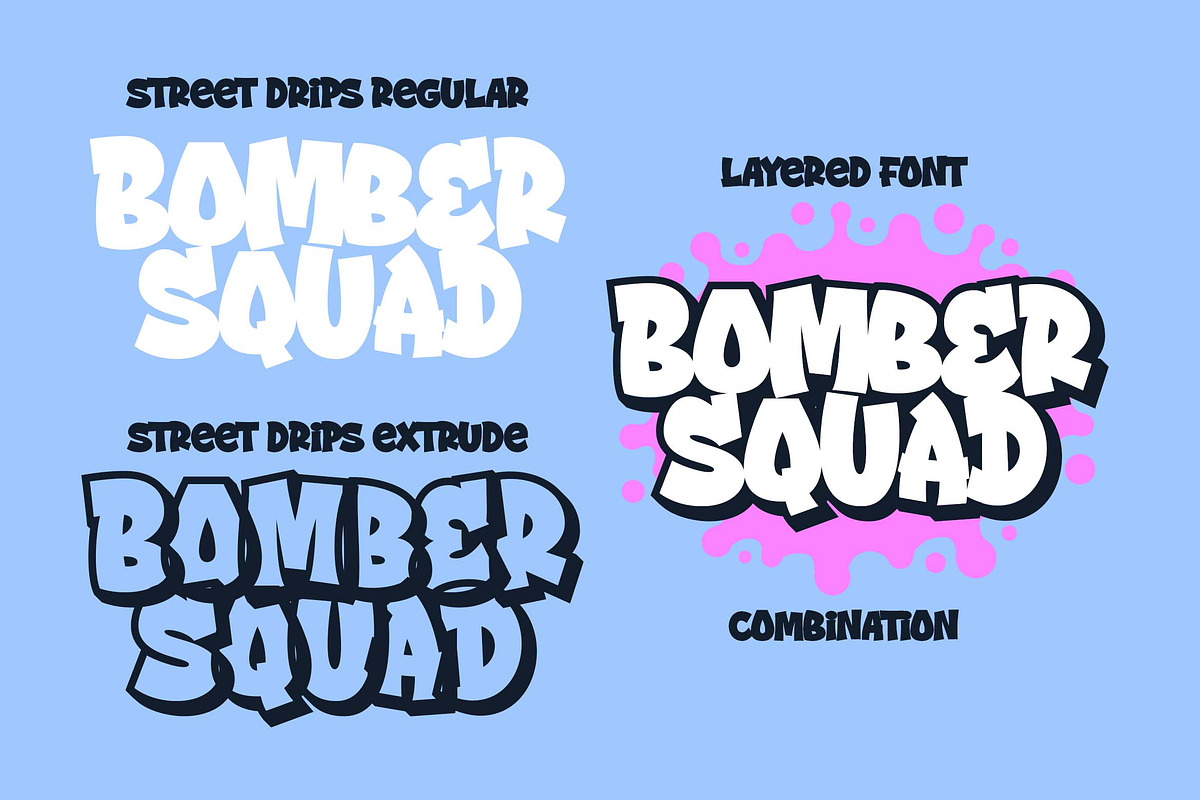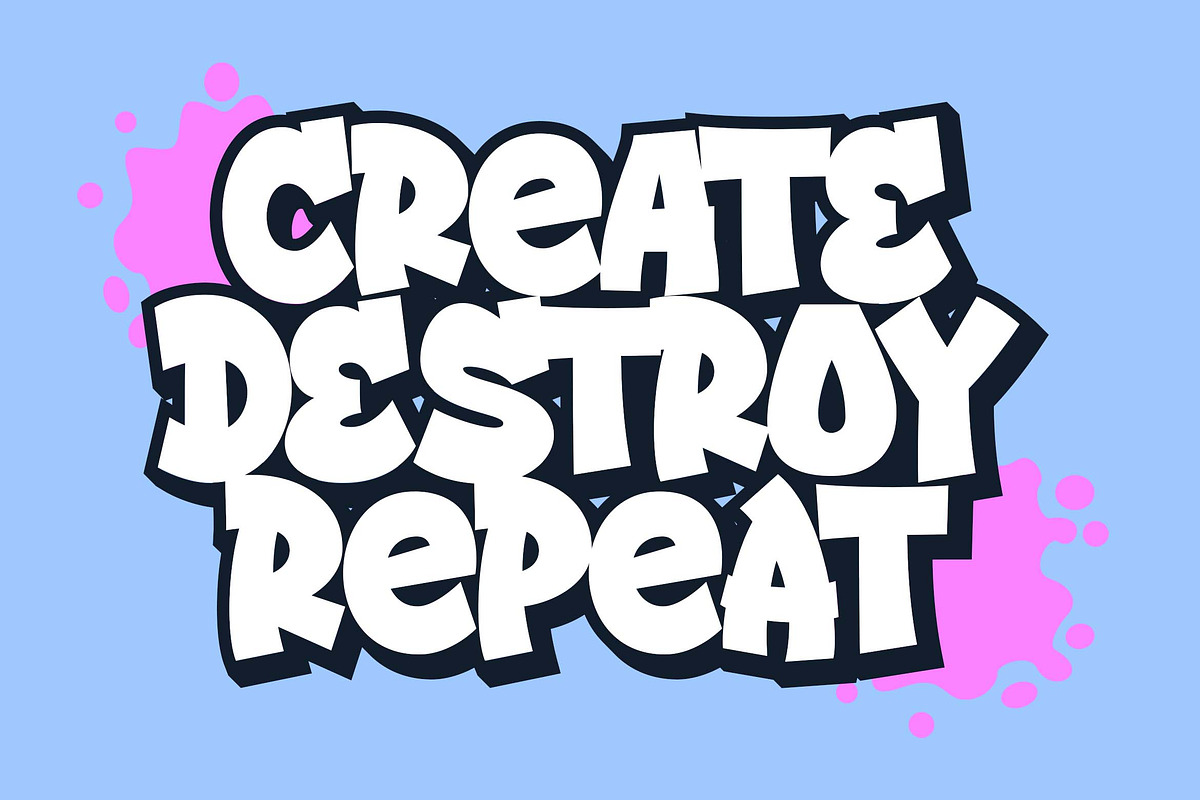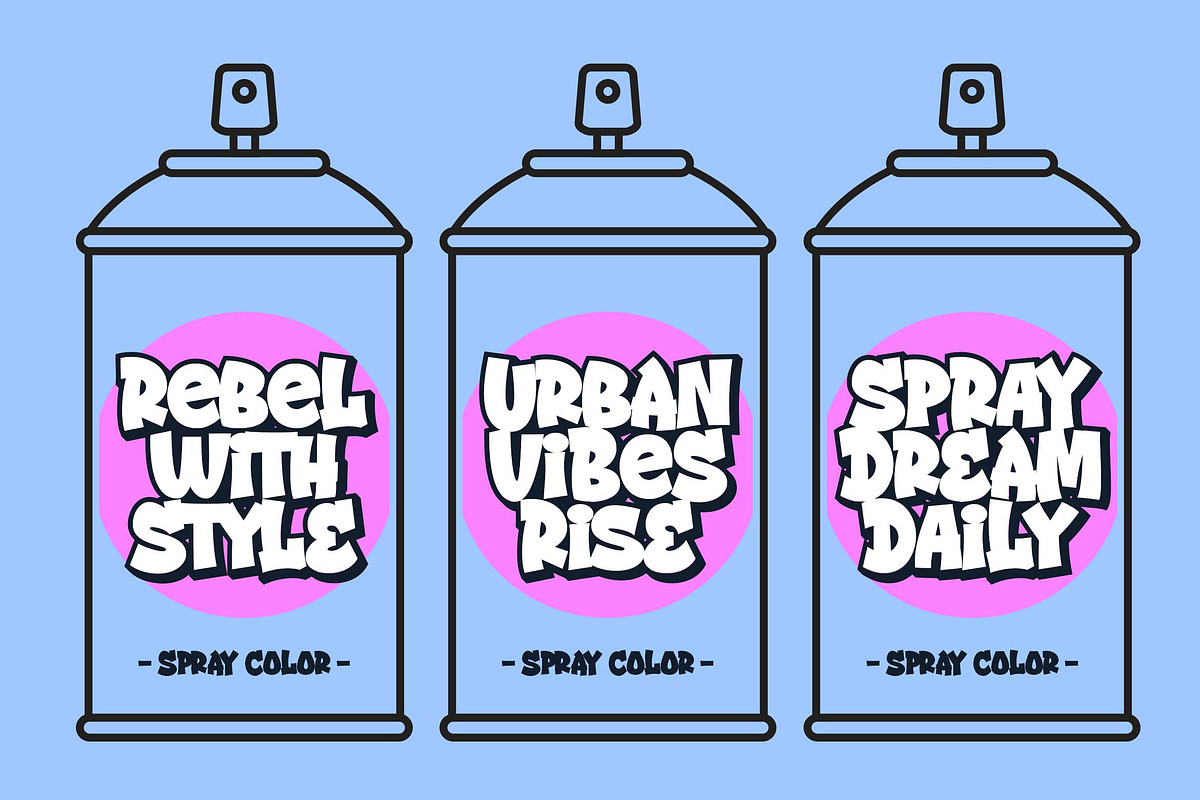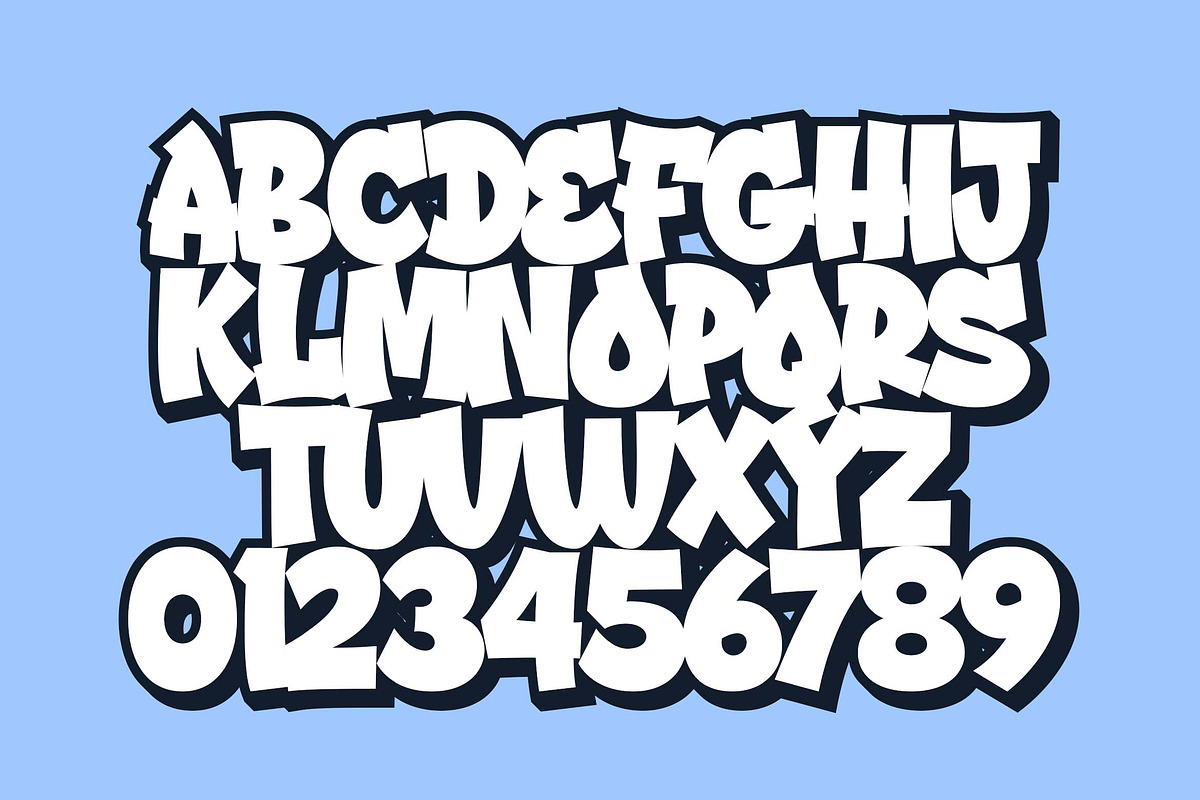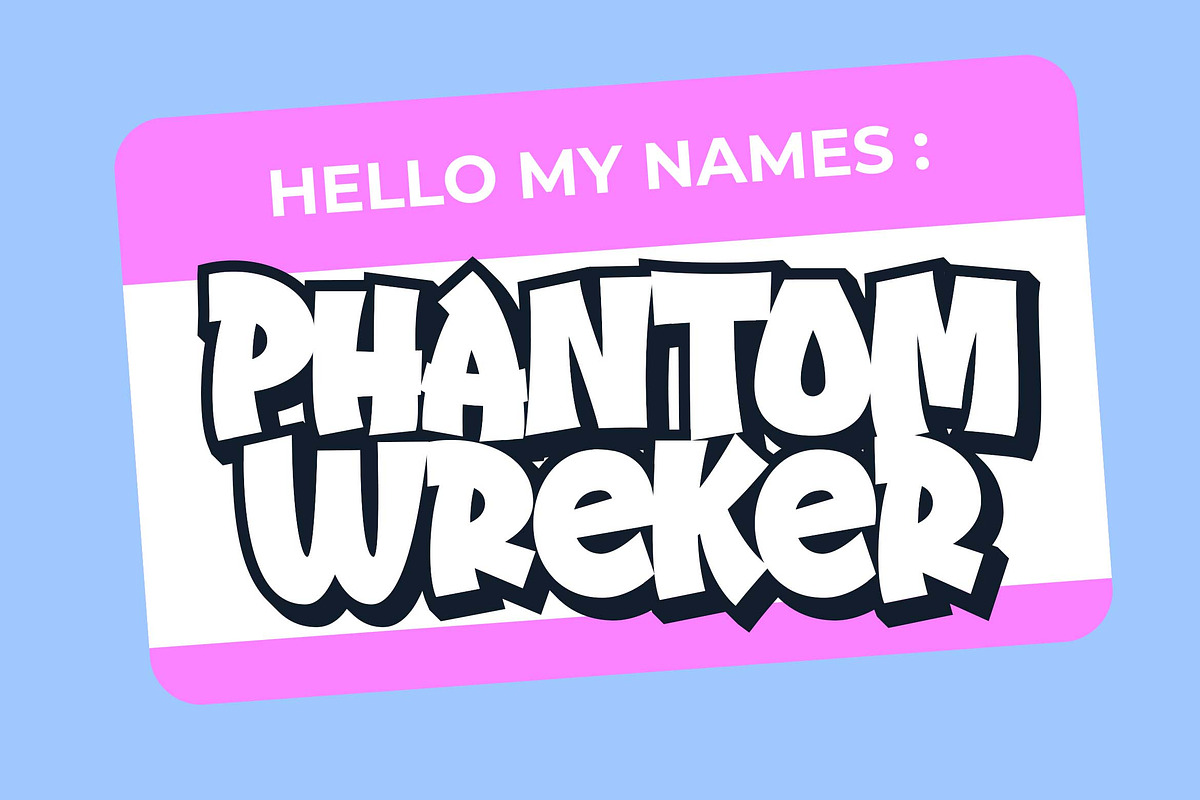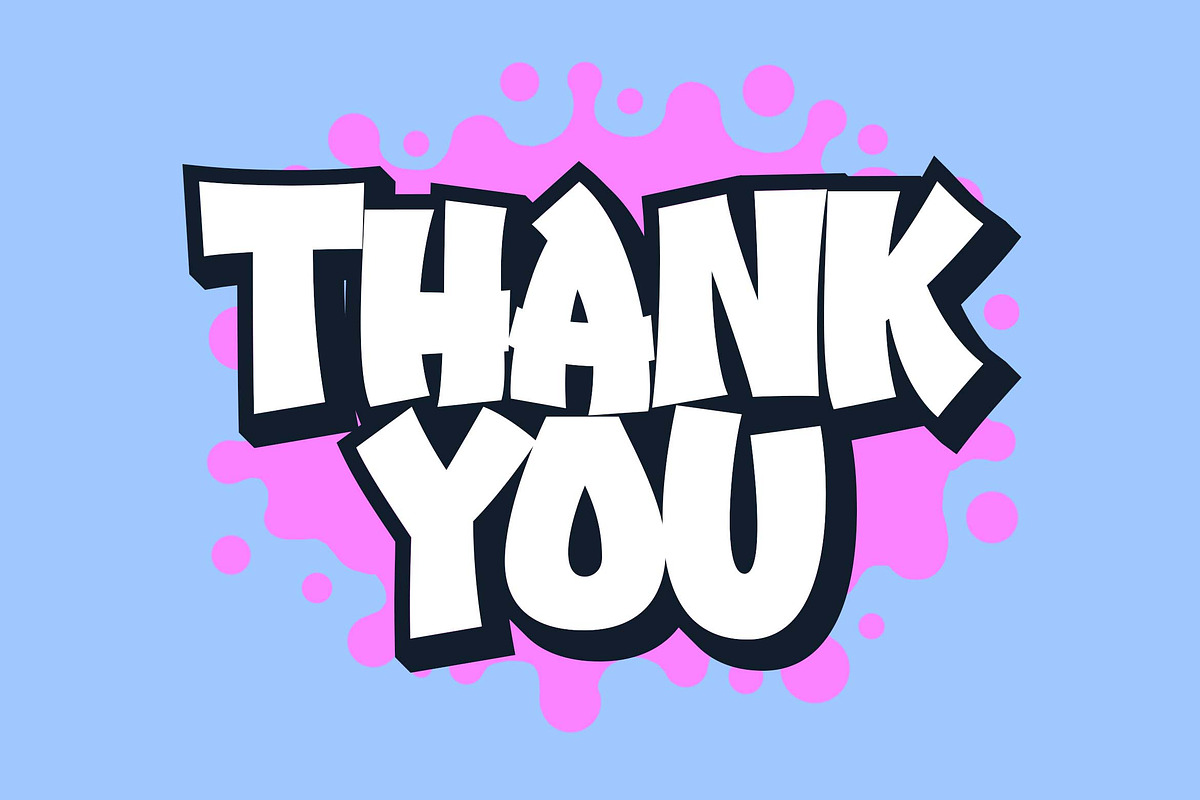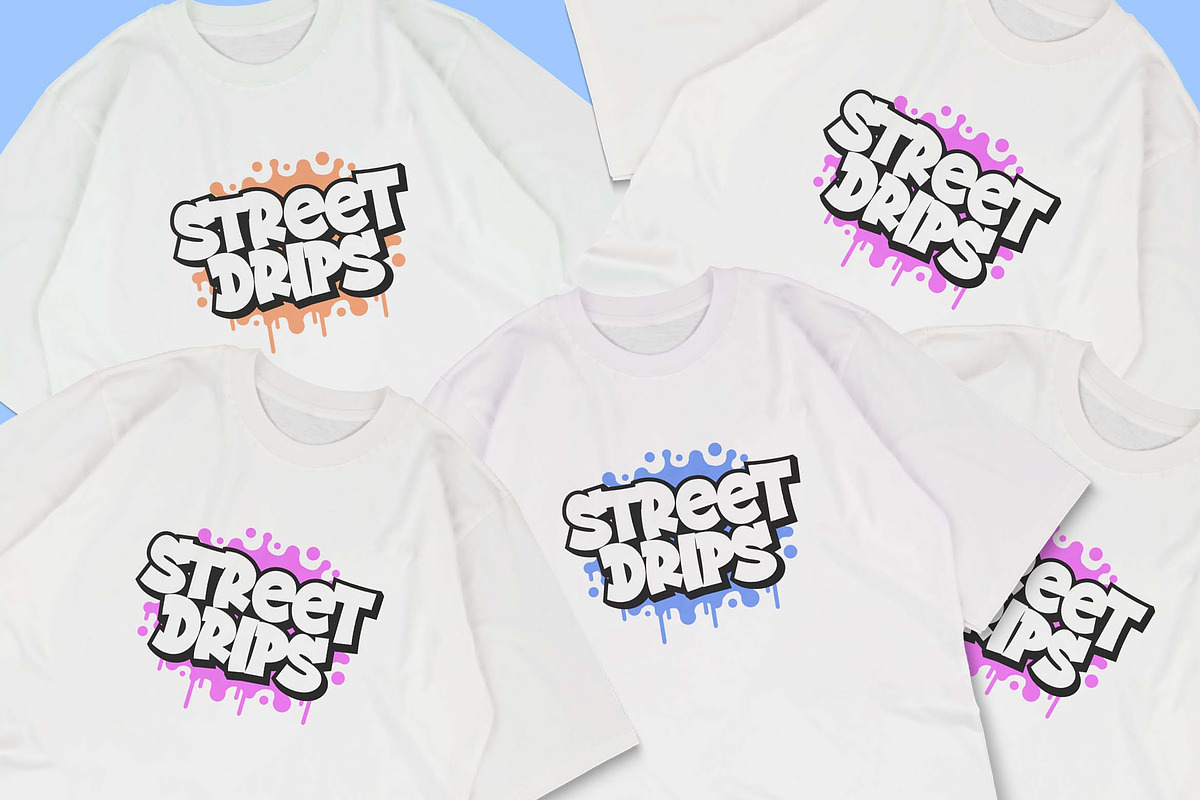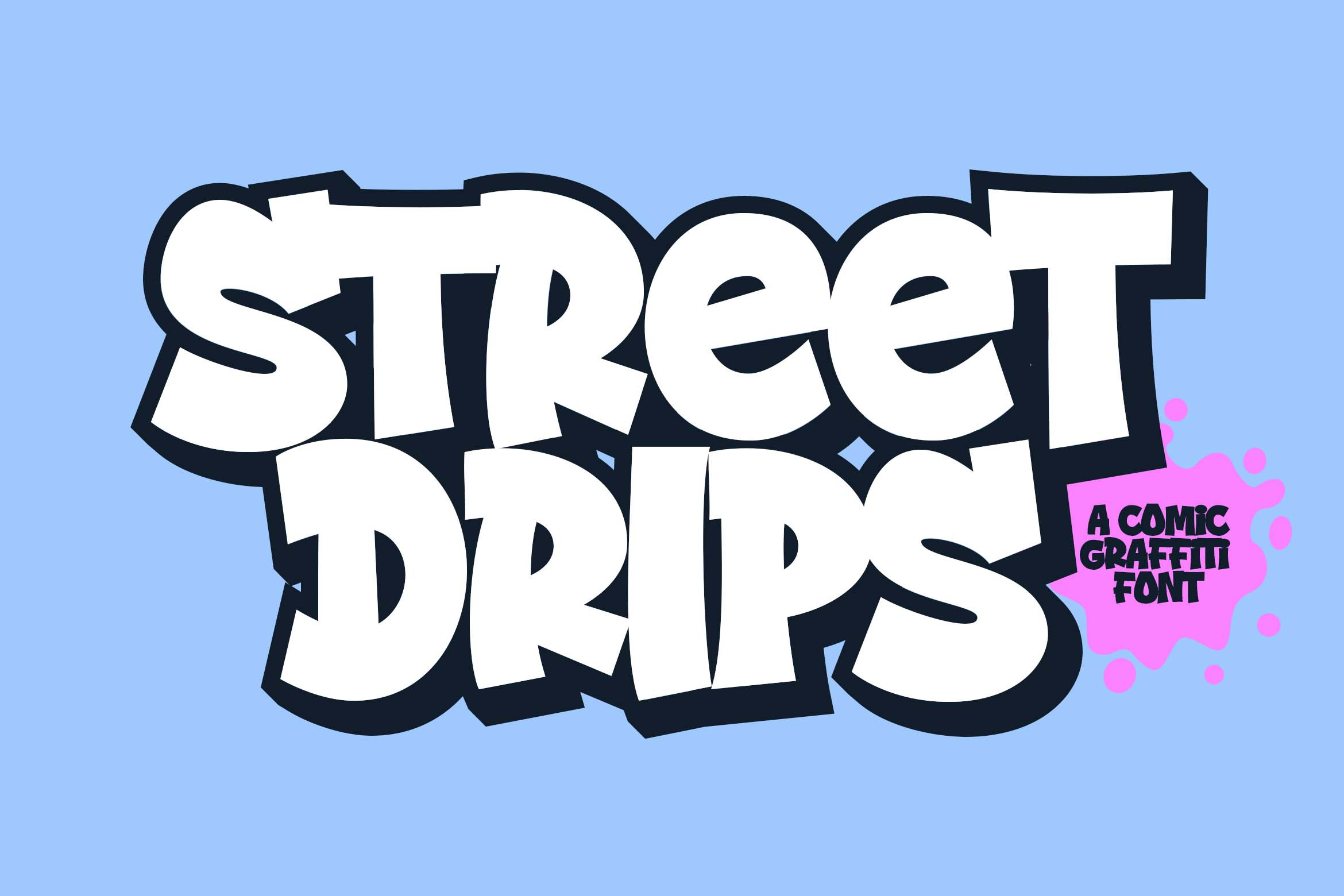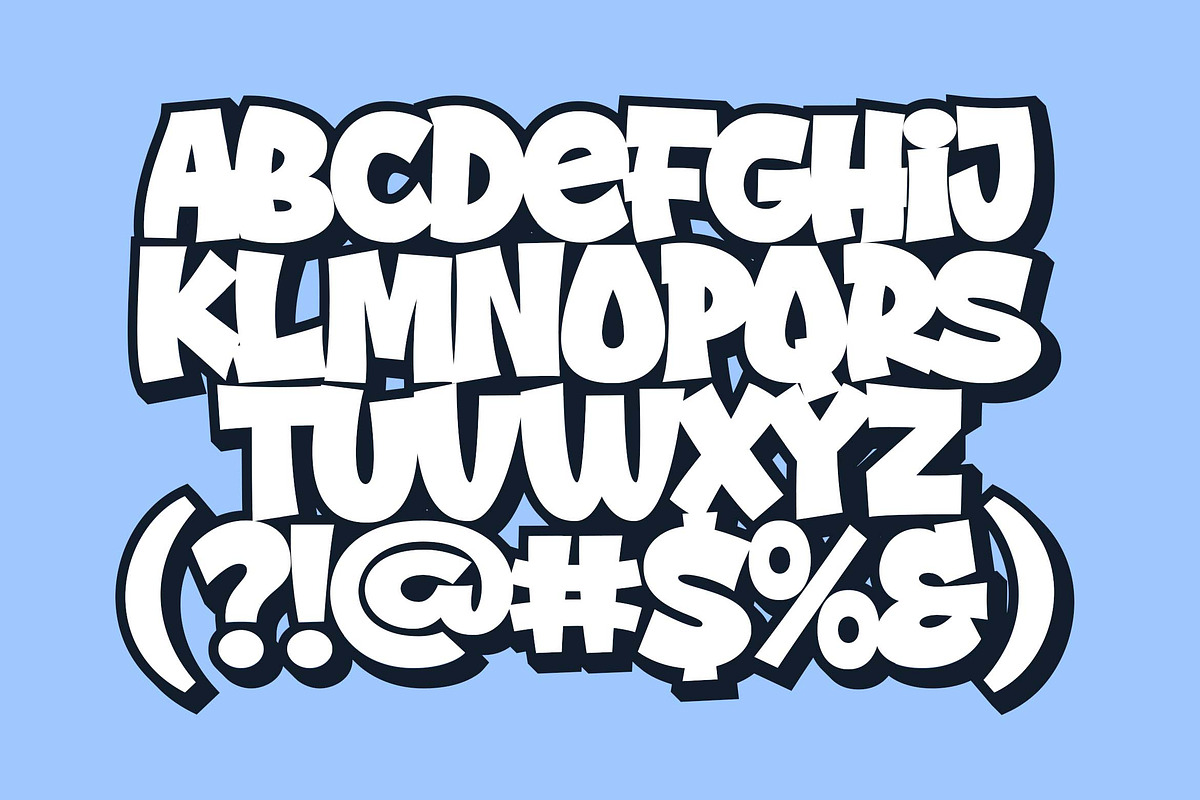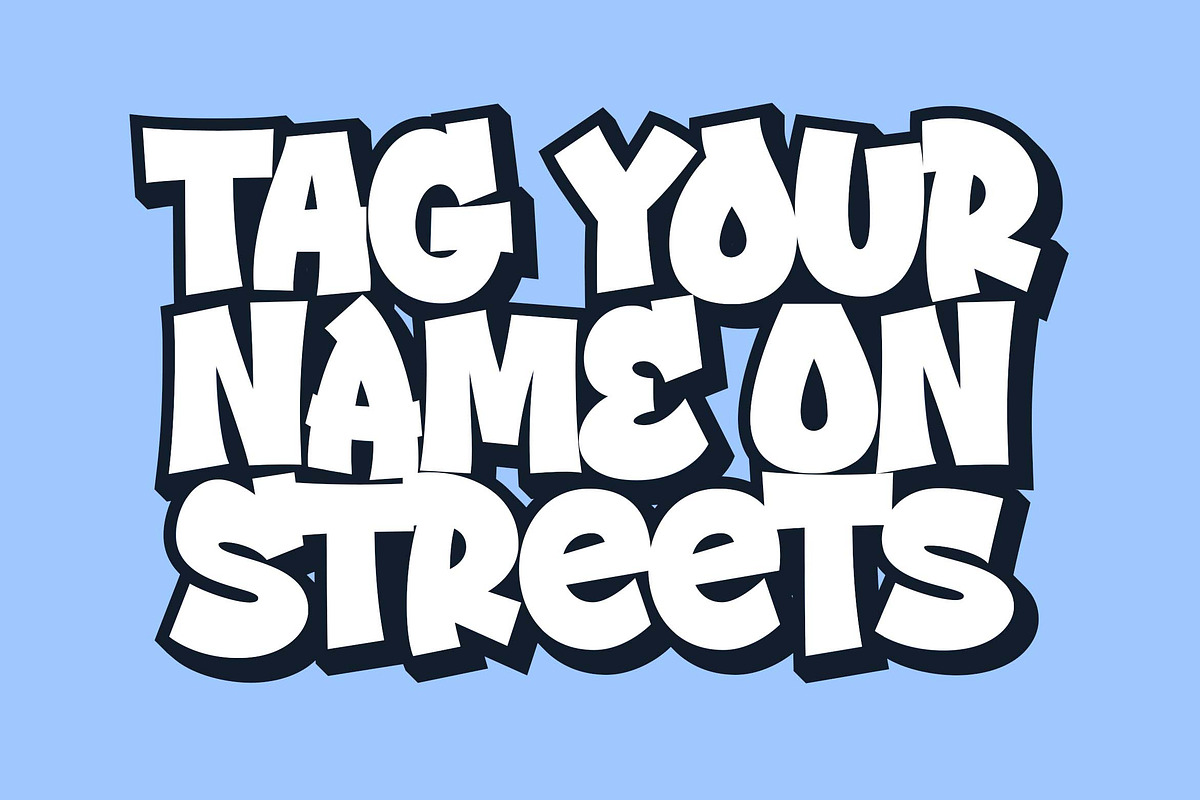
Street Drips - Graffiti Cartoon font
Hello, awesome people! This time, we have a new font called Street Drips a Graffiti Cartoon font by Blankids Studio.
Street Drips, a Graffiti Cartoon font is made for any professional project branding, such as logotype, comic, watermarks, poster, branding, promotions, product packaging, etc. Every letter has a graffiti cartoon style design. This font comes in 2 font combination regular and extrude.
Street Drips font includes a full set of graffiti uppercase and lowercase letters, numerals and punctuation. This font has a cartoon style. See the previews above to get some inspiration on how to use them. Happy designing!